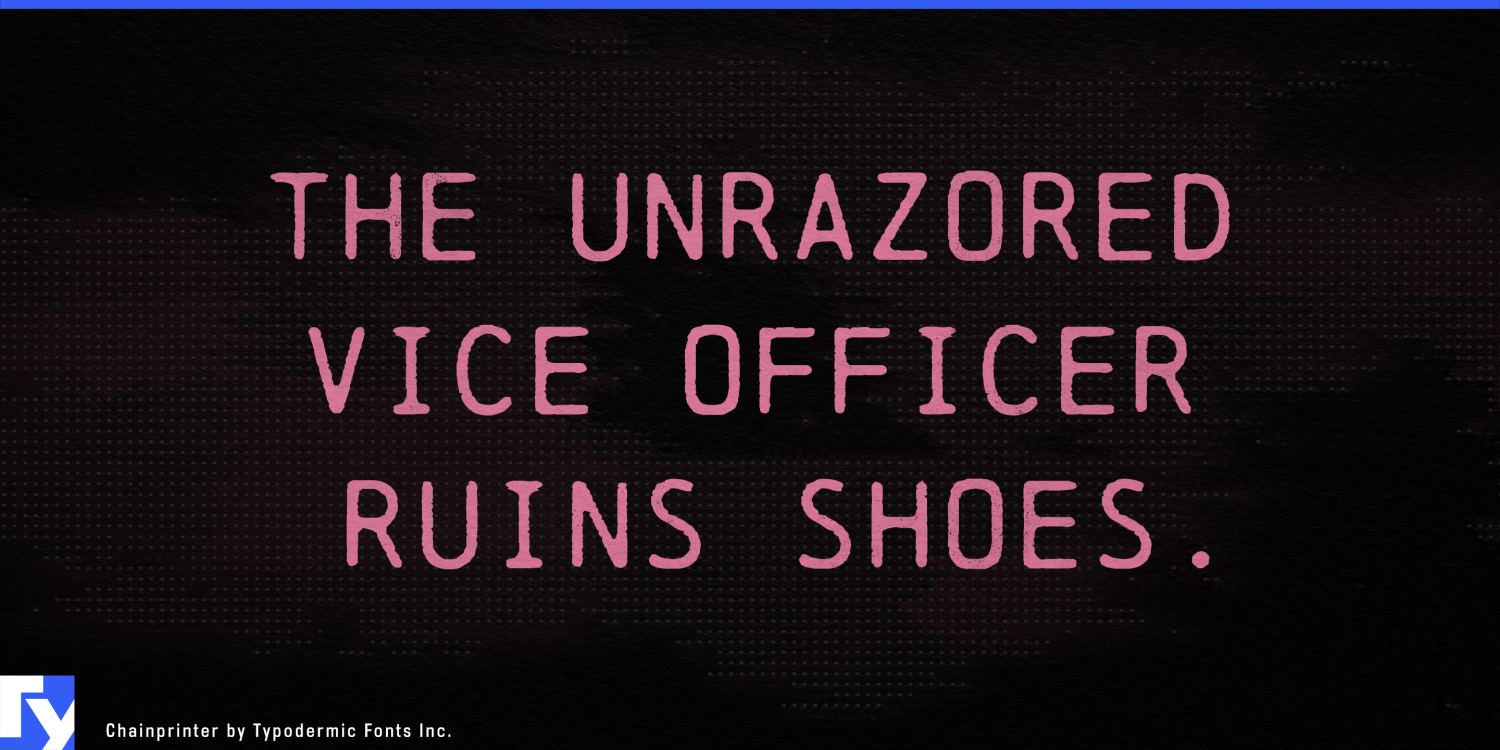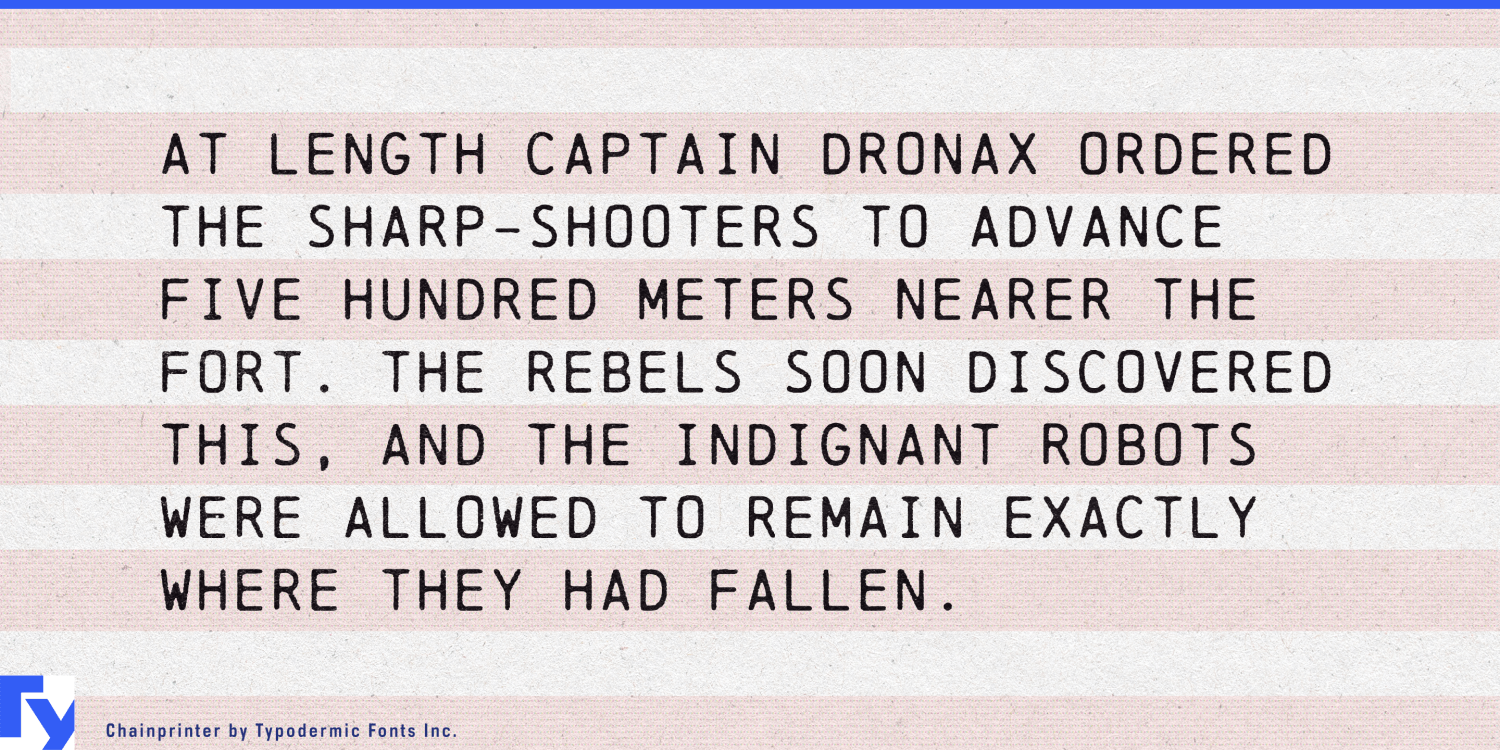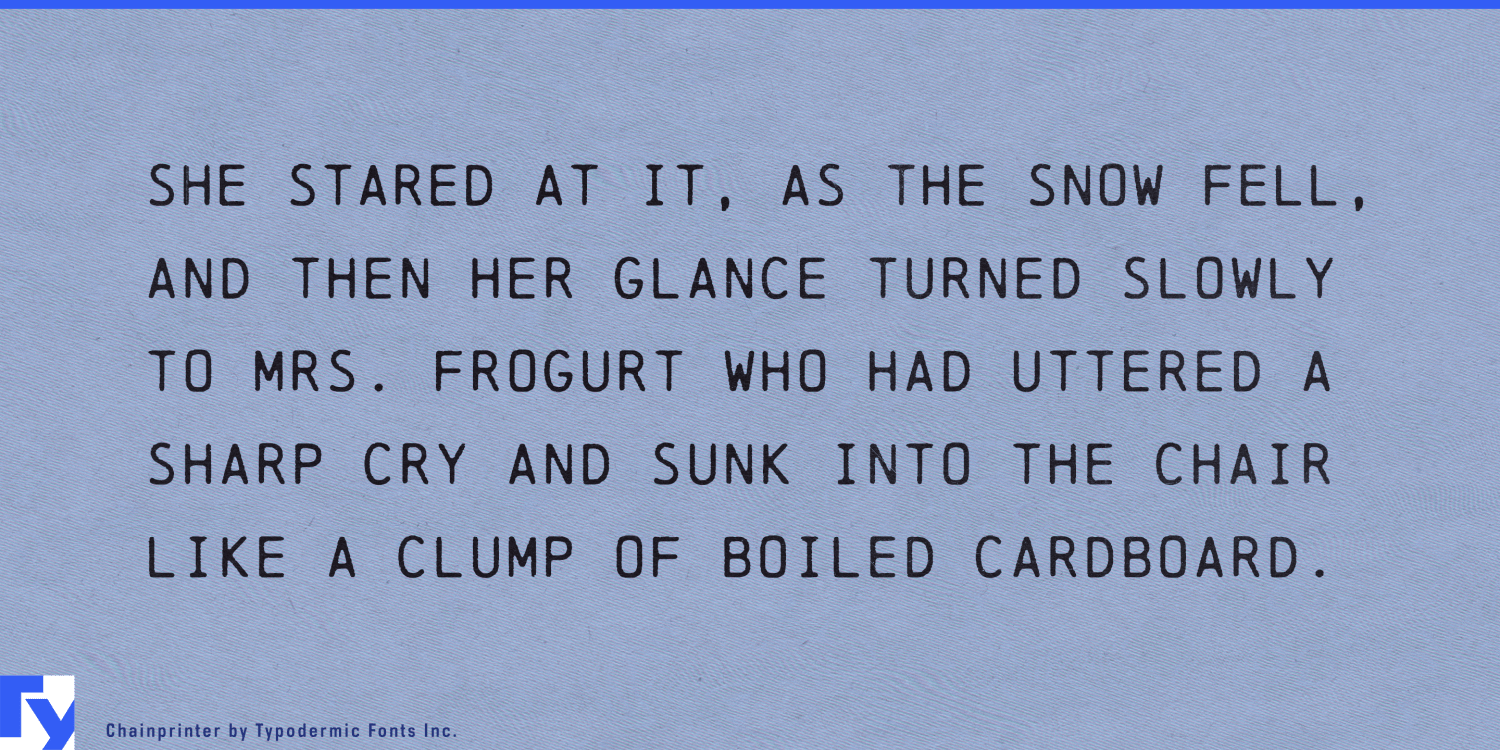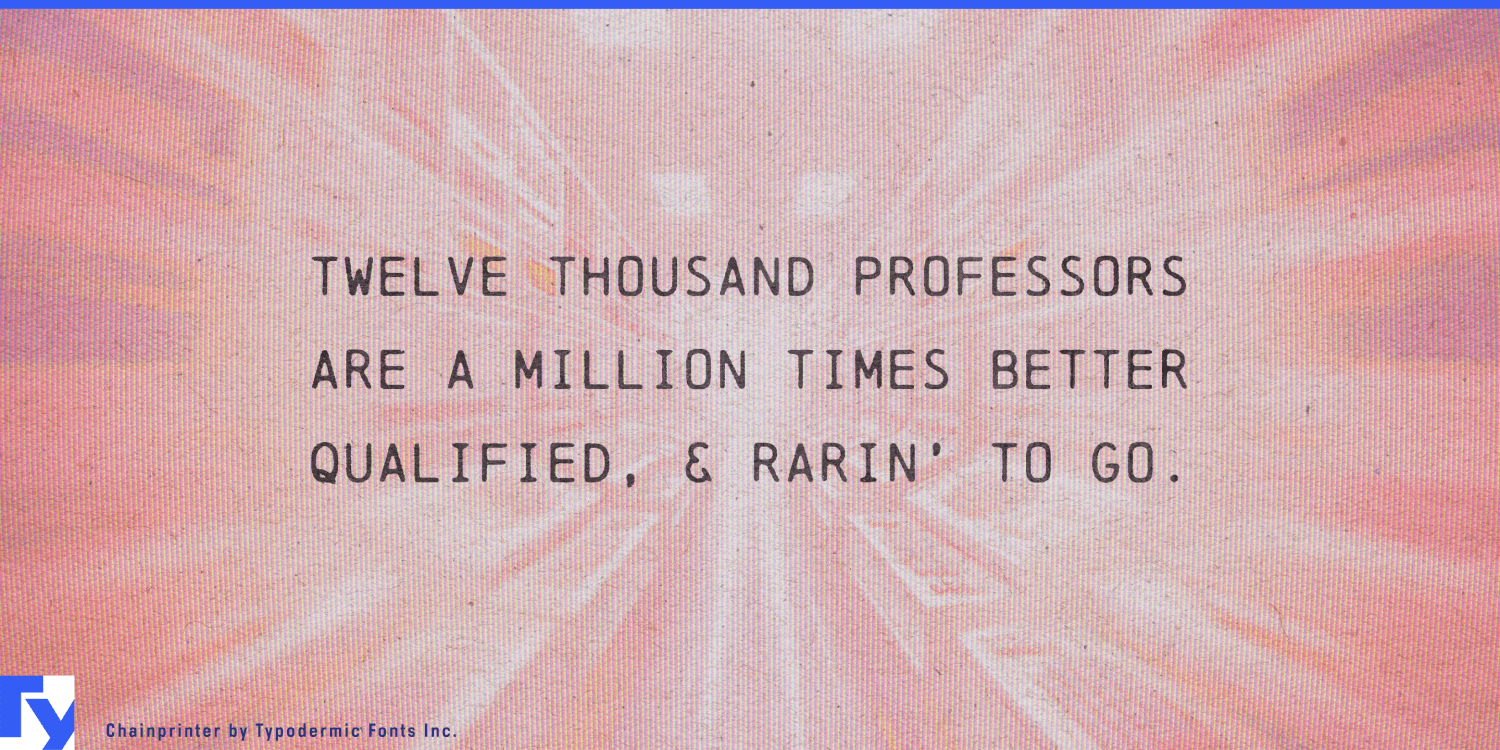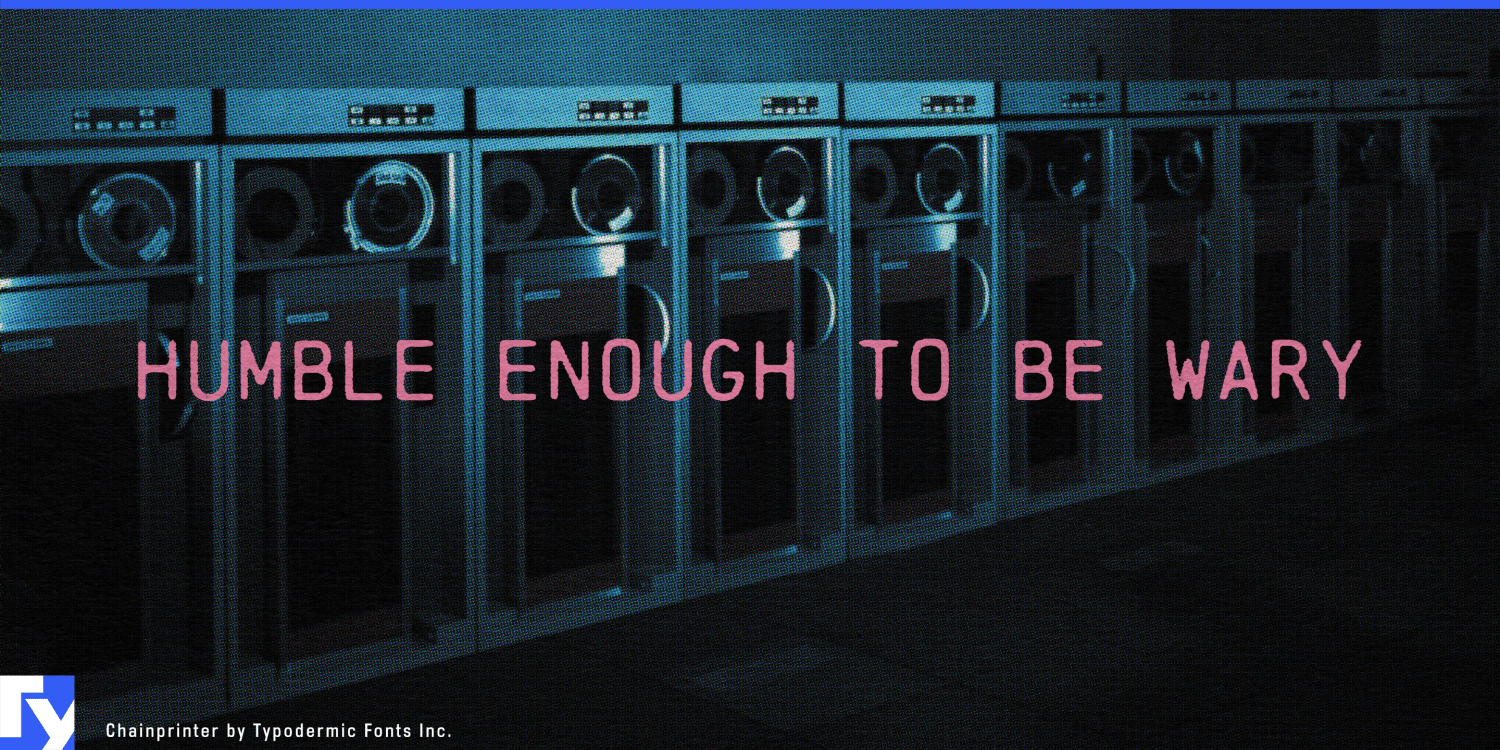
About Chainprinter
Step into the electrifying world of vintage computing with Chainprinter, a typeface that captures the raw essence of early digital innovation. This all-caps font pays homage to the mighty chainprinter—a marvel of 1960s engineering that sliced through…